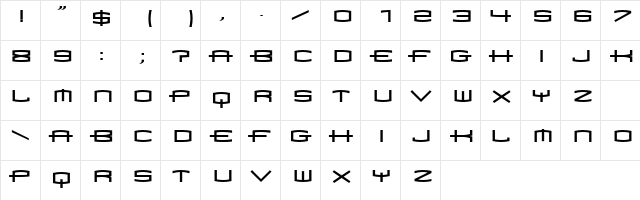
1979 Regular
| Copyright | I made this font so I could have something looked like the Pumpkins 1979 single. |
Design Context for 1979 Typeface
1979 is a composed and adaptable typeface that performs quietly and consistently across a wide range of design contexts.